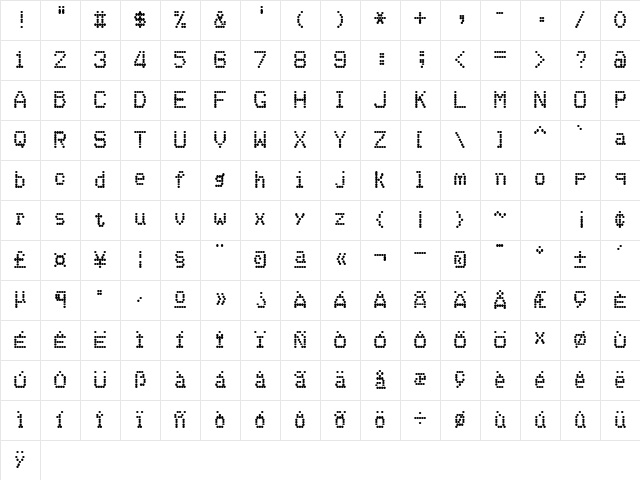
DotMatrix OneRegular Free Font
DotMatrix OneRegular
Style: OneRegular
DotMatrix Family
Complete DotMatrix OneRegular glyph index. Displaying only characters natively supported by DotMatrix OneRegular font.
Design Context for DotMatrix
DotMatrix is rooted in pixel-grid construction, making it a natural fit for game UI, retro computing aesthetics, and digital nostalgia projects.